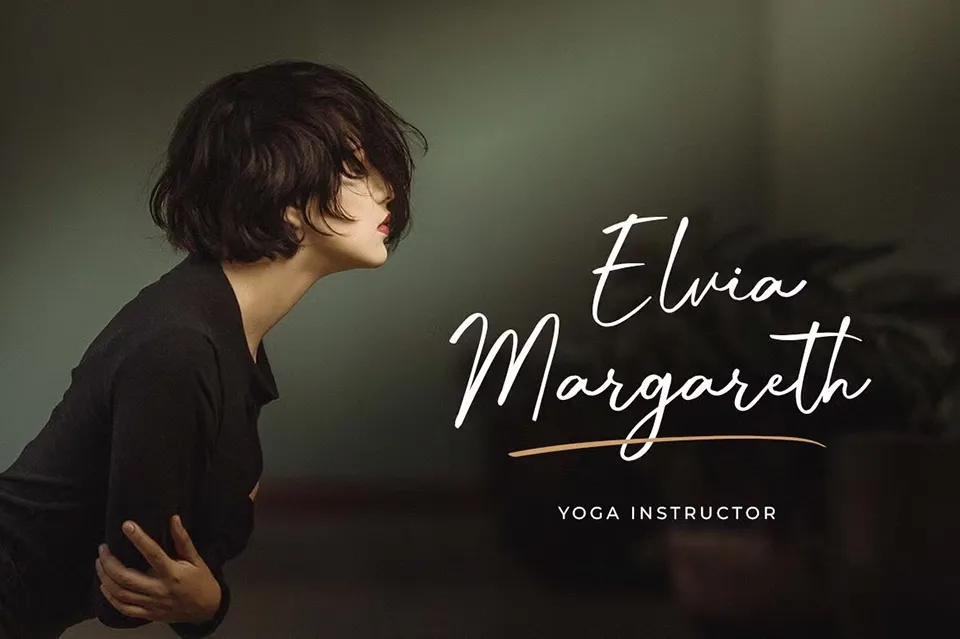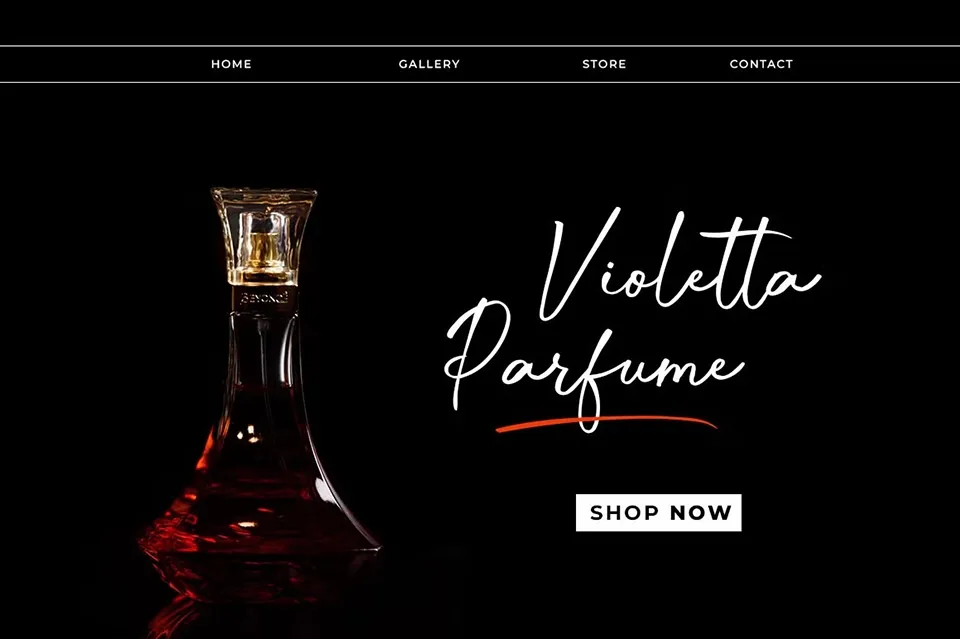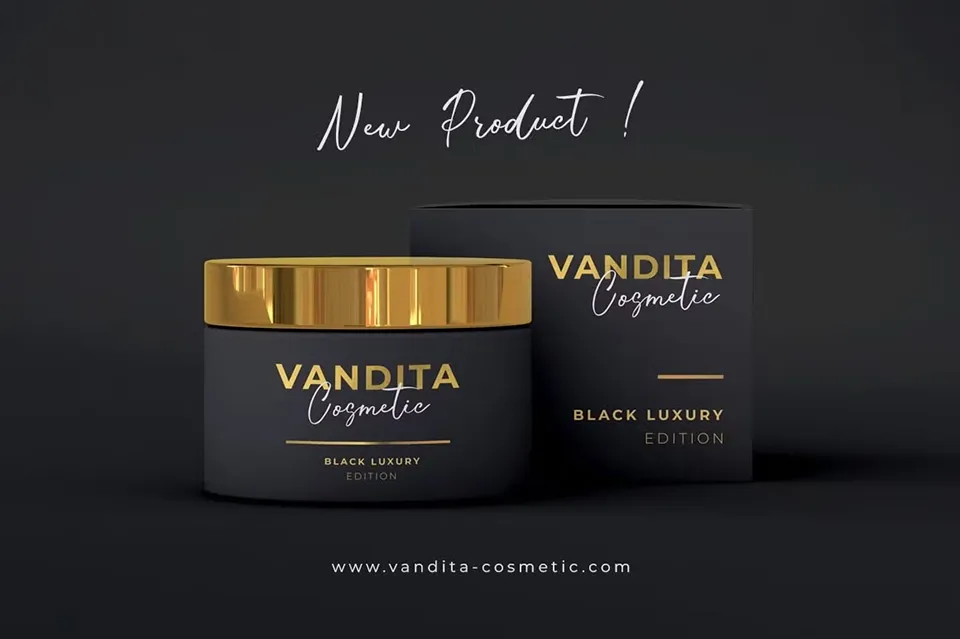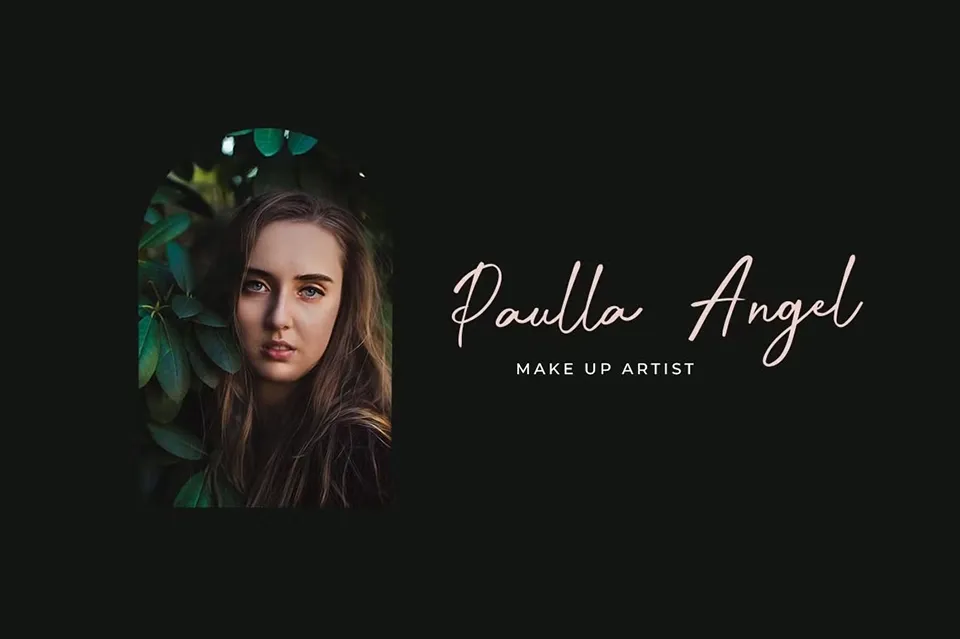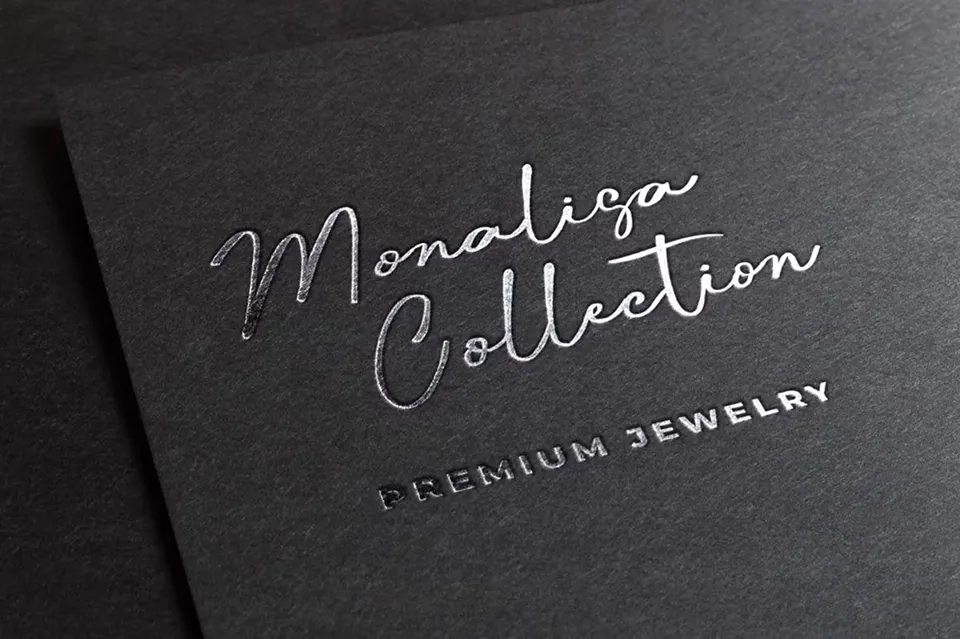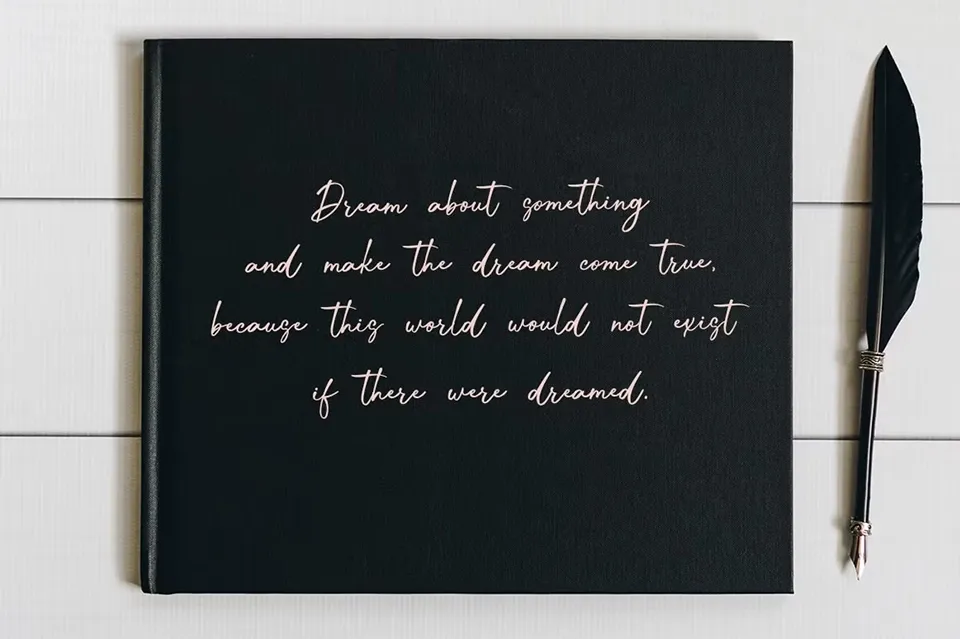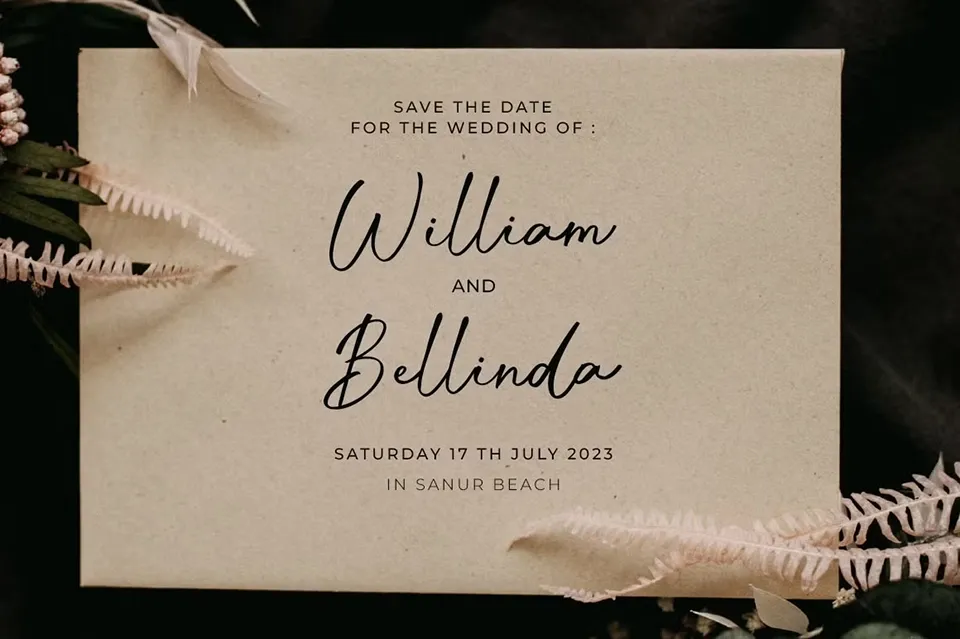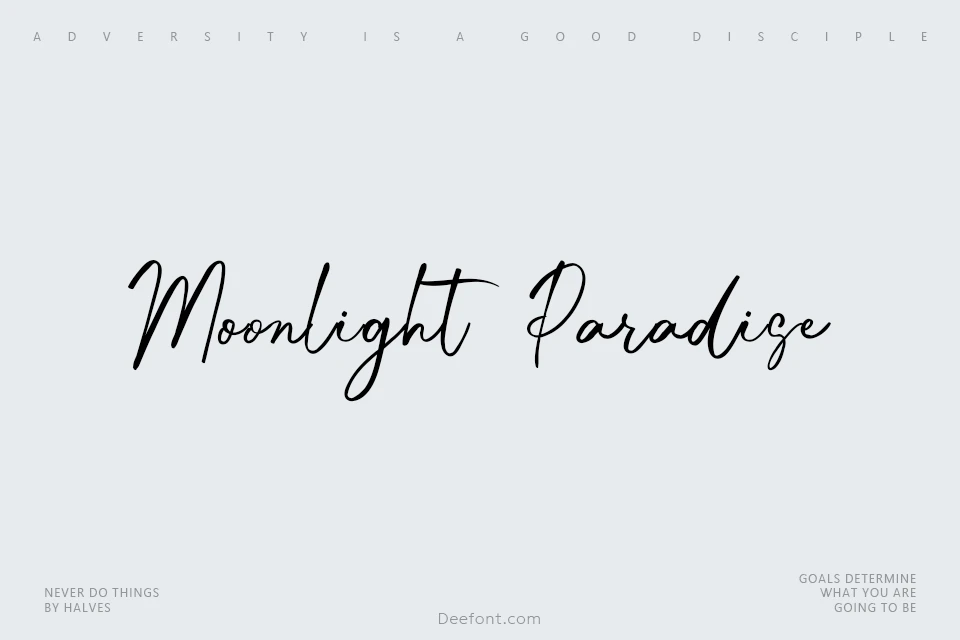
Moonlight Paradise Font
Moonlight Paradise Font is a stunning and elegant script typeface designed to bring a sense of sophistication and beauty to your creative projects. Its flowing, handwritten style captures the essence of grace and charm, making it ideal for branding, wedding invitations, greeting cards, social media designs, and more. The font’s delicate strokes and refined letterforms evoke a dreamy and romantic atmosphere, perfect for designs that seek to stand out with elegance. Whether used for bold headlines or intricate details, Moonlight Paradise Font adds a touch of luxury and artistry to any text, ensuring your creations shine with timeless appeal.